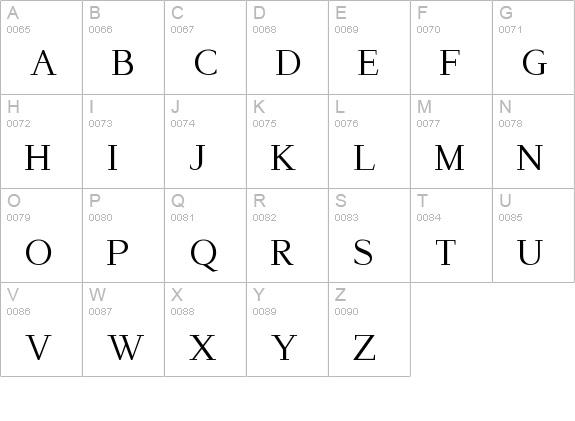
FlyHigh Font Details
Introducing FlyHigh font, a sleek and modern typeface that exudes sophistication and elegance. This versatile font is perfect for a wide range of design projects, from branding to editorial design. With its clean lines and stylish curves, FlyHigh effortlessly captures attention and adds a touch of class to any project. What sets FlyHigh apart is not just its stunning design, but also the fact that it is completely free to download. Yes, you read that right - this high-quality font is available at no cost, making it accessible to designers and creatives of all levels. Simply head over to FontsMarket.com to grab your own copy of FlyHigh and elevate your designs with this striking typeface. Unleash your creativity and let FlyHigh take your projects to new heights!